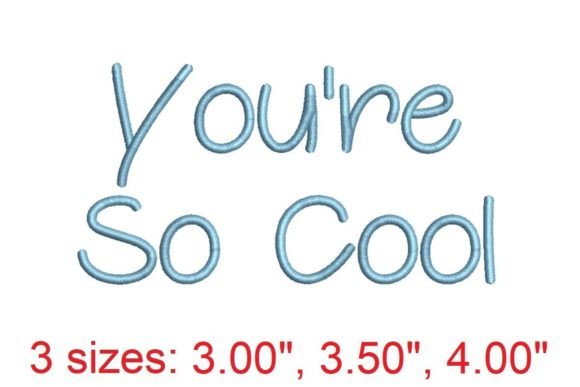
You re So Cool Embroidery Font
As an embroidery designer with years of experience, I've come across countless fonts and designs, but few have caught my attention quite like the You re So Cool Embroidery Font. This design offers a unique blend of elegance and personality that can elevate any project. Whether you're working on custom apparel, personalized gifts, or commercial embroidery, this font has the potential to make a real impact.
The First Impression: Style and Substance
The You re So Cool Embroidery Font immediately stands out for its clean lines and modern aesthetic. It carries a subtle confidence that feels both sophisticated and approachable. The font's design is versatile enough to work in a variety of settings, from casual tote bags to more formal embroidered items. Its visual mood is warm and inviting, making it ideal for projects aimed at a broad audience.
One of the most appealing aspects of this font is its level of detail. The lettering is well-balanced, with a natural flow that avoids being too rigid or overly decorative. This makes it suitable for both simple and complex embroidery projects. Whether you're using it for a basic name tag or a more intricate design, the You re So Cool Embroidery Font delivers consistent quality.
Real-World Performance: Practical Considerations
When considering the You re So Cool Embroidery Font for real-world use, it's important to think about how it will perform on different materials and in various applications. For instance, when stitching onto stretchy fabrics like cotton or jersey, the font maintains its shape without distortion. This is crucial for projects like sweatshirts or baby onesies, where comfort and fit are essential.
For smaller projects, such as embroidered patches or caps, the font holds up well even at reduced sizes. However, it's worth noting that very small lettering may require careful attention to stitch density to ensure clarity. When working with curved surfaces, like caps or round patches, the font adapts smoothly, maintaining its readability and visual appeal.
On darker fabrics, the You re So Cool Embroidery Font benefits from high-contrast thread colors. Using white or light-colored threads can make the design pop, while darker threads provide a more subdued, elegant look. Testing the font on scrap fabric before starting a final project is always a good idea to confirm how it will appear in practice.
Applications Across Projects
This font is particularly well-suited for back-to-school themed projects. Whether you're creating personalized backpacks, tote bags, or lunchboxes, the You re So Cool Embroidery Font adds a touch of class that appeals to both kids and parents. Its versatility also makes it a great choice for handmade gifts, such as aprons, kitchen towels, or pillow covers, which often require a balance of style and functionality.
For commercial embroidery, the You re So Cool Embroidery Font offers a professional look that can enhance the value of your finished products. Whether you're selling on Etsy, at craft fairs, or through your own boutique, this font can help create a cohesive brand identity. It works well as part of a larger design, such as an applique design or a combination of satin stitch and fill stitch elements.
When used in printable mockups, the font retains its clarity and visual appeal, making it easier to present your ideas to clients or showcase your work online. For digital product sellers, this font could be a valuable addition to your design assets, offering a ready-to-use option for customers looking for high-quality embroidery files.
Key Tips for Using You re So Cool Embroidery Font
Impact on Product Value and Customer Engagement
The You re So Cool Embroidery Font has the potential to significantly enhance the perceived value of your handmade products. Its clean, professional look can make a big difference in how customers view your work, especially when paired with thoughtful design choices and high-quality materials.
From a branding perspective, using this font consistently across your products helps build recognition and trust. Customers are more likely to return if they associate your work with a specific style or quality. Additionally, the font's appeal can make your products more giftable, increasing their desirability during seasonal or holiday periods.
In terms of product photography, the You re So Cool Embroidery Font adds visual interest that can make your listings stand out. Clear, well-executed embroidery can improve customer engagement and lead to higher conversion rates, whether you're selling online or at local markets.
Final Thoughts
Overall, the You re So Cool Embroidery Font is a solid choice for embroidery designers, Etsy sellers, and small business owners looking to add a refined touch to their handmade products. Its versatility, ease of use, and strong visual appeal make it a valuable addition to any embroidery collection.